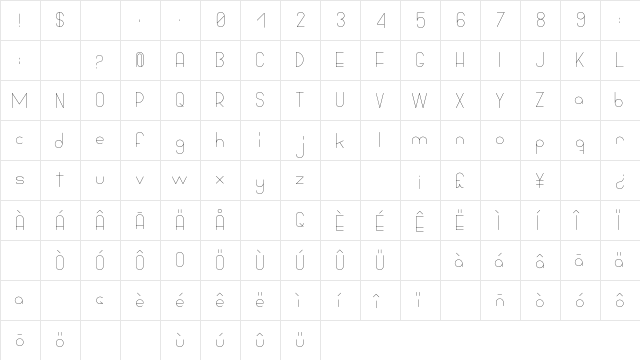
Bowhouse Light
Design Context for Bowhouse Typeface
Bowhouse offers clean, dependable letterforms without strong stylistic allegiance, making it a practical choice for designers who need flexibility. Its slender proportions lend an understated elegance to any composition.
Pro Tip: Pair Bowhouse with a font of contrasting weight or personality to build a more expressive typographic hierarchy.